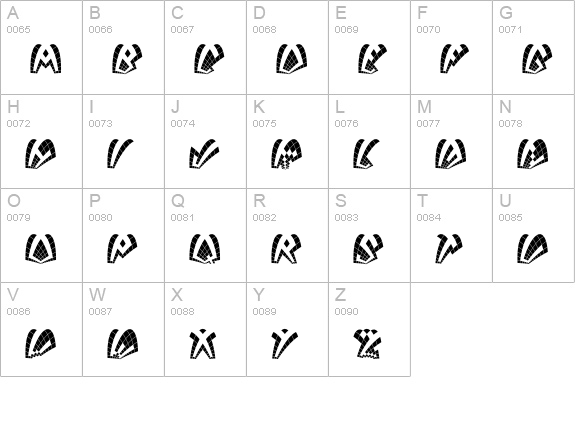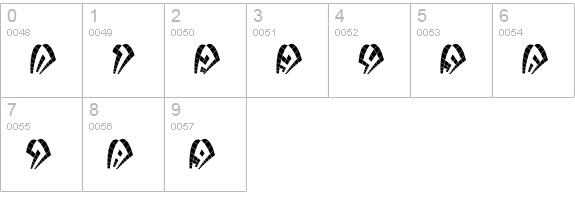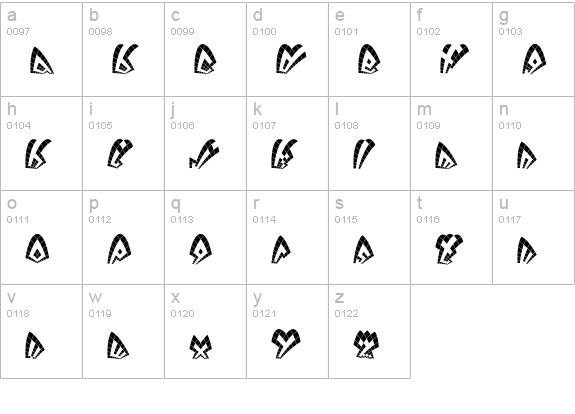
DackShattered Font Details
Introducing DackShattered, an awe-inspiring font that will leave a lasting impression on any design project. This unique typeface brings a touch of edginess and creativity, perfect for those seeking to add a bold statement to their work. DackShattered boasts a captivating shattered effect, giving each letter a dynamic and captivating appearance. Its sharp edges and fragmented composition create a visually striking impact, making it an ideal choice for headlines, logos, posters, and more. With its versatile nature, DackShattered can adapt to various themes and styles, whether it be a modern and sleek design or a vintage and nostalgic concept. This font has the power to elevate any creative endeavor, adding a touch of sophistication and intrigue. What's more, DackShattered is not only visually captivating but also easily accessible. As a free font, it is freely available to download at FontsMarket.com. This means that designers and enthusiasts alike can effortlessly incorporate this exceptional typeface into their projects without any financial burden. Experience the power of DackShattered and unleash your creativity with this remarkable font. Whether you're designing for print or digital media, its shattered effect will undoubtedly make a lasting impact. Download DackShattered for free at FontsMarket.com and embark on a journey of limitless creativity.